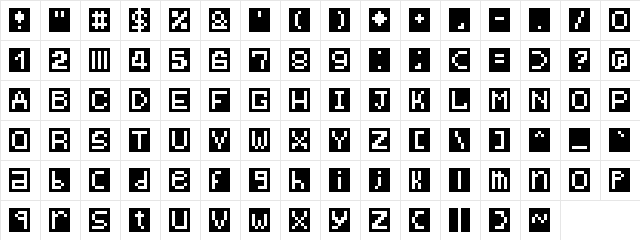
BitMap Regular
Design Context for BitMap Typeface
BitMap is rooted in pixel-grid construction, making it a natural fit for game UI, retro computing aesthetics, and digital nostalgia projects.
Well-suited to indie game interfaces, retro computing aesthetics, and pixel art-adjacent design work.
Pro Tip: Use BitMap at sizes that align with its pixel grid for the sharpest rendering — scaling to non-integer multiples can introduce unwanted blur.